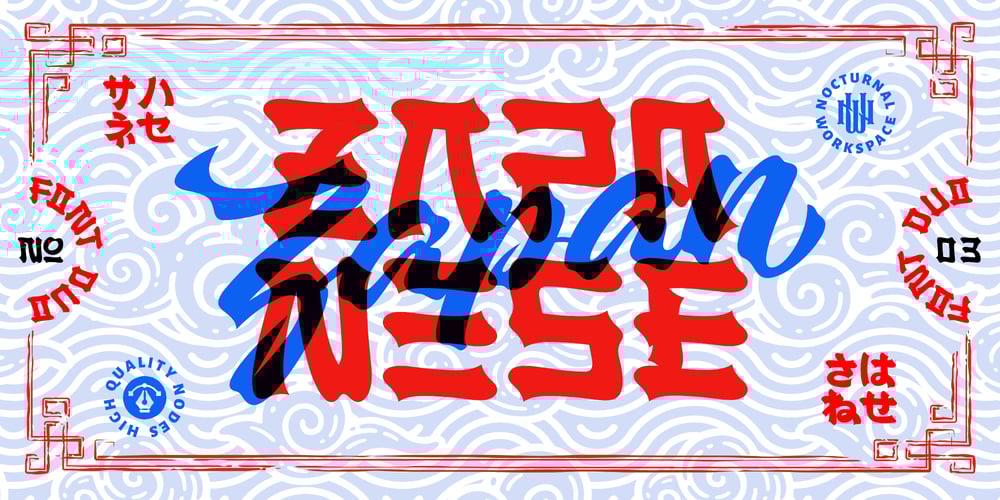
Zapanese Font Family was designed by Farhan Tirta and published by Nocturnal Workspace. Zapanese contains 2 styles and family package options. The first version of the Zapanese font has been published since 2019 under the name Zapan Script, and can be downloaded for free on the dafont website. At first this font was just a learning project from the 3rd type font and because we saw the enthusiasm of the downloaders, we developed it into a duo font with extra japanese elements. 2 versions Support Glyphs Basic Hiragana & Basic Katakana PUA Encode Characters, fully accessible without additional design software. Includes a range of multilingual characters. Zapanese is suitable typeface for various purposes like logotype, signage, label, poster, dropcap, titles, letterhead, book cover and etc.Thank you!